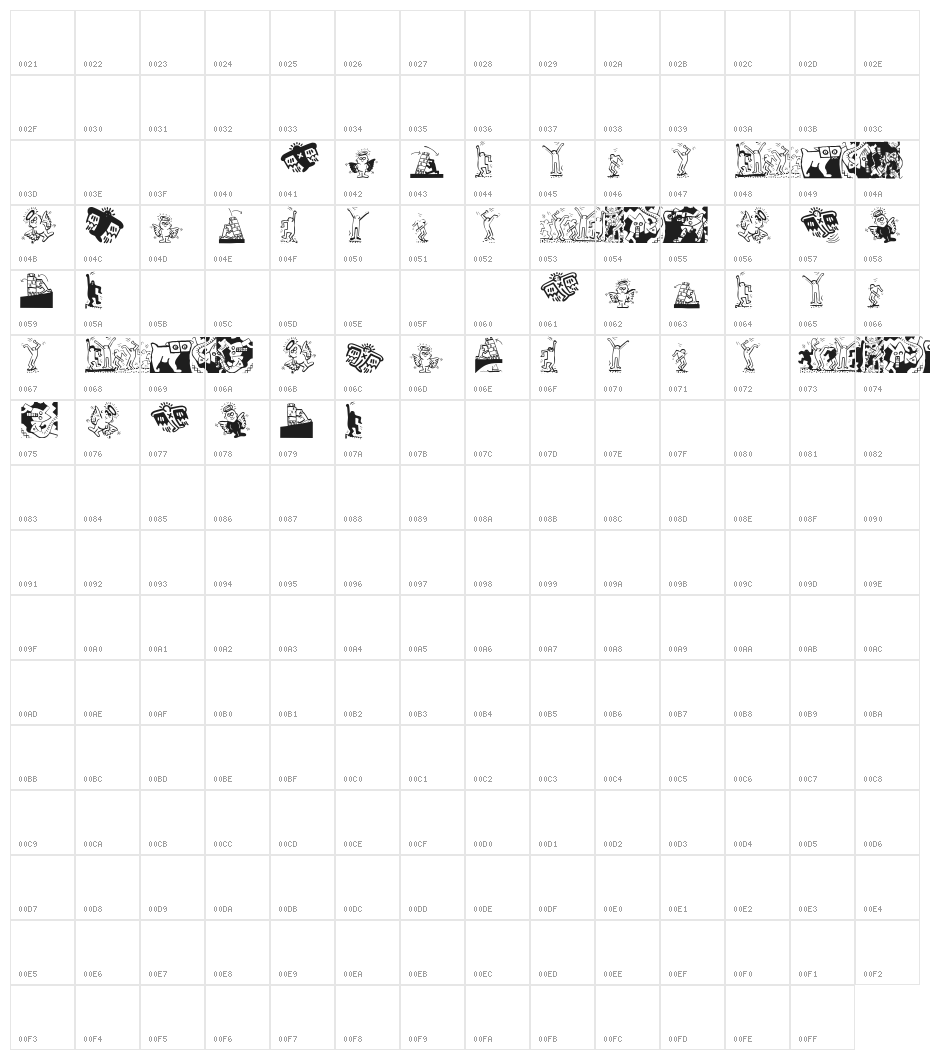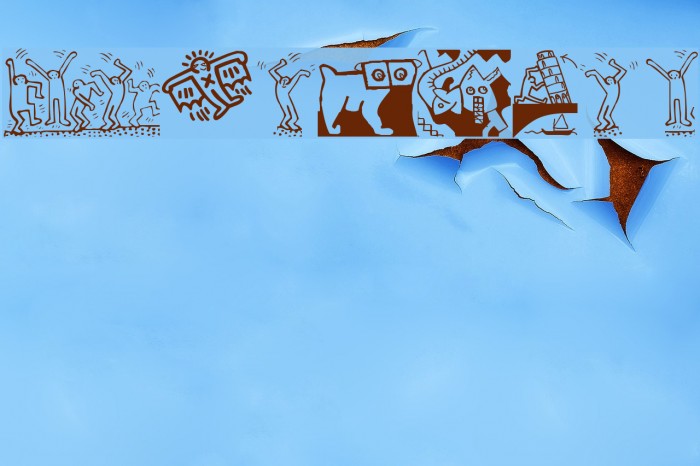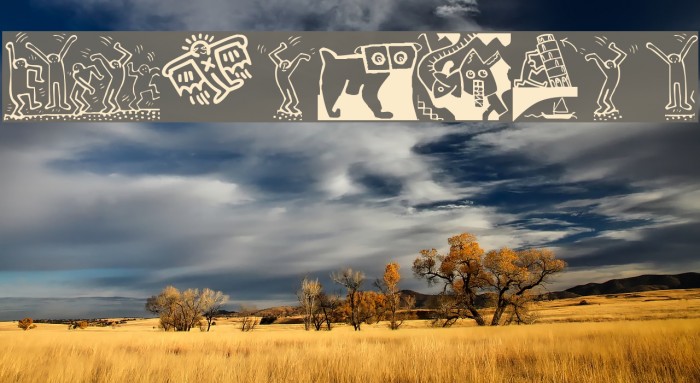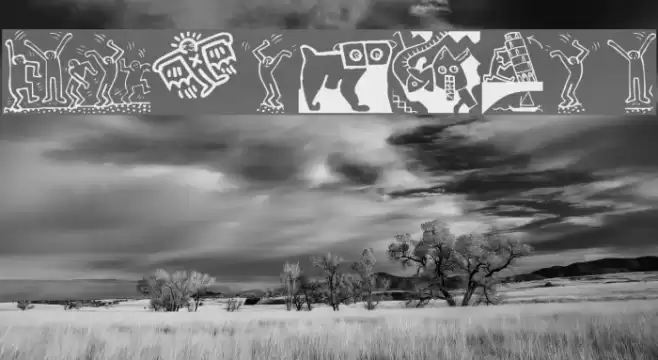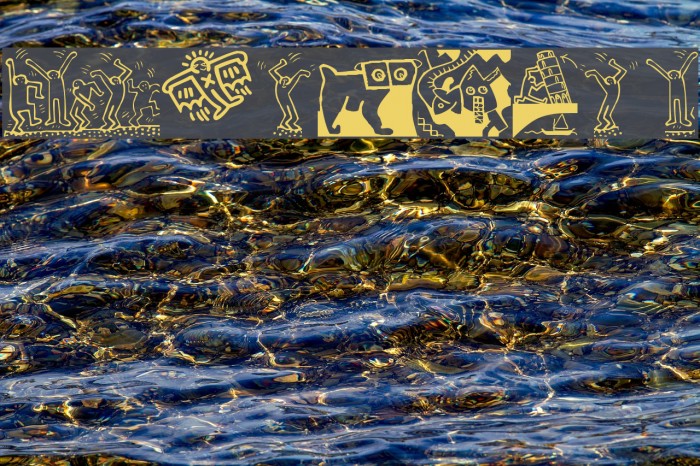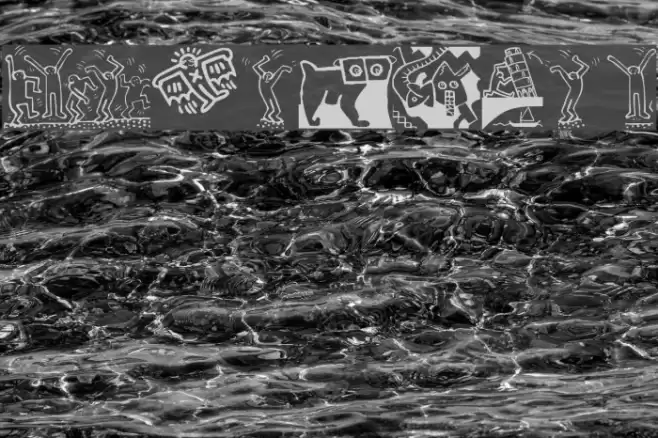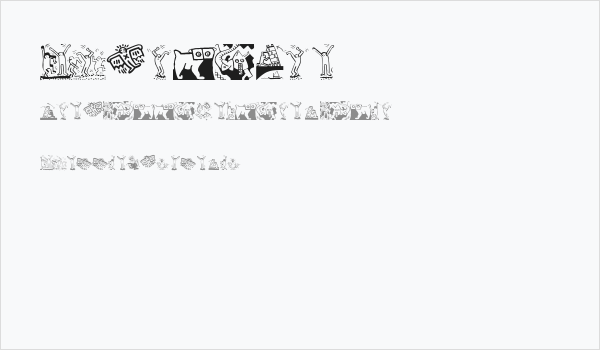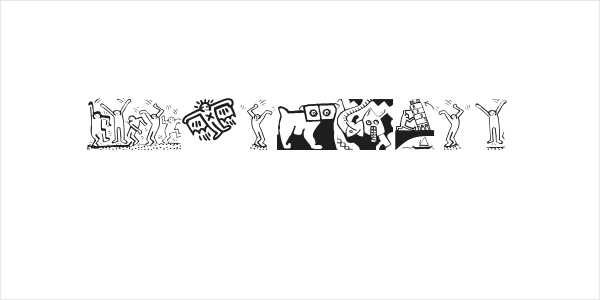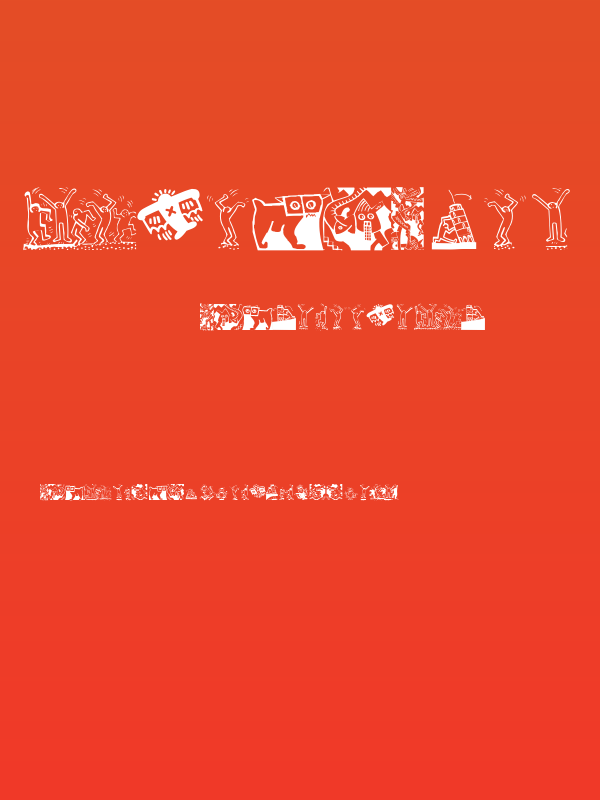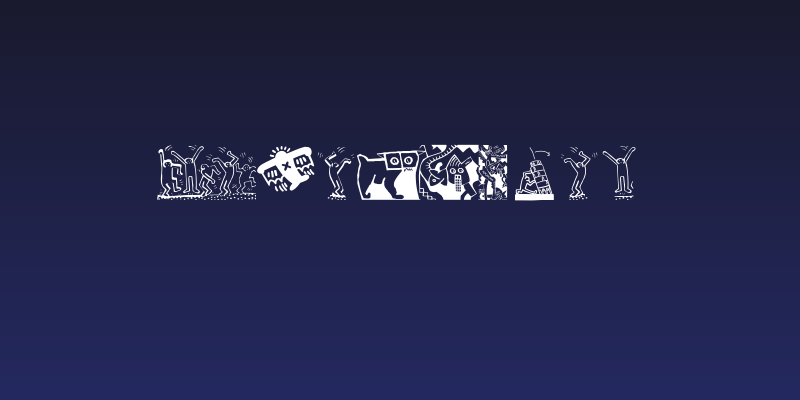
Haringe Font
This is not a traditional font but rather a collection of artistic and whimsical illustrations inspired by a distinctive style. Each character is represented by a unique drawing, featuring playful and abstract human figures, animals, and objects. The style is bold and graphic, with thick lines and high contrast, creating a lively and dynamic appearance. The characters are expressive and convey a sense of movement and energy, making them suitable for creative and unconventional design projects.
| Use Case | Logos, Posters, Artistic Designs |
| Proposed Projects | Ideal for creative projects such as posters, album covers, or any design requiring a unique and artistic touch. |